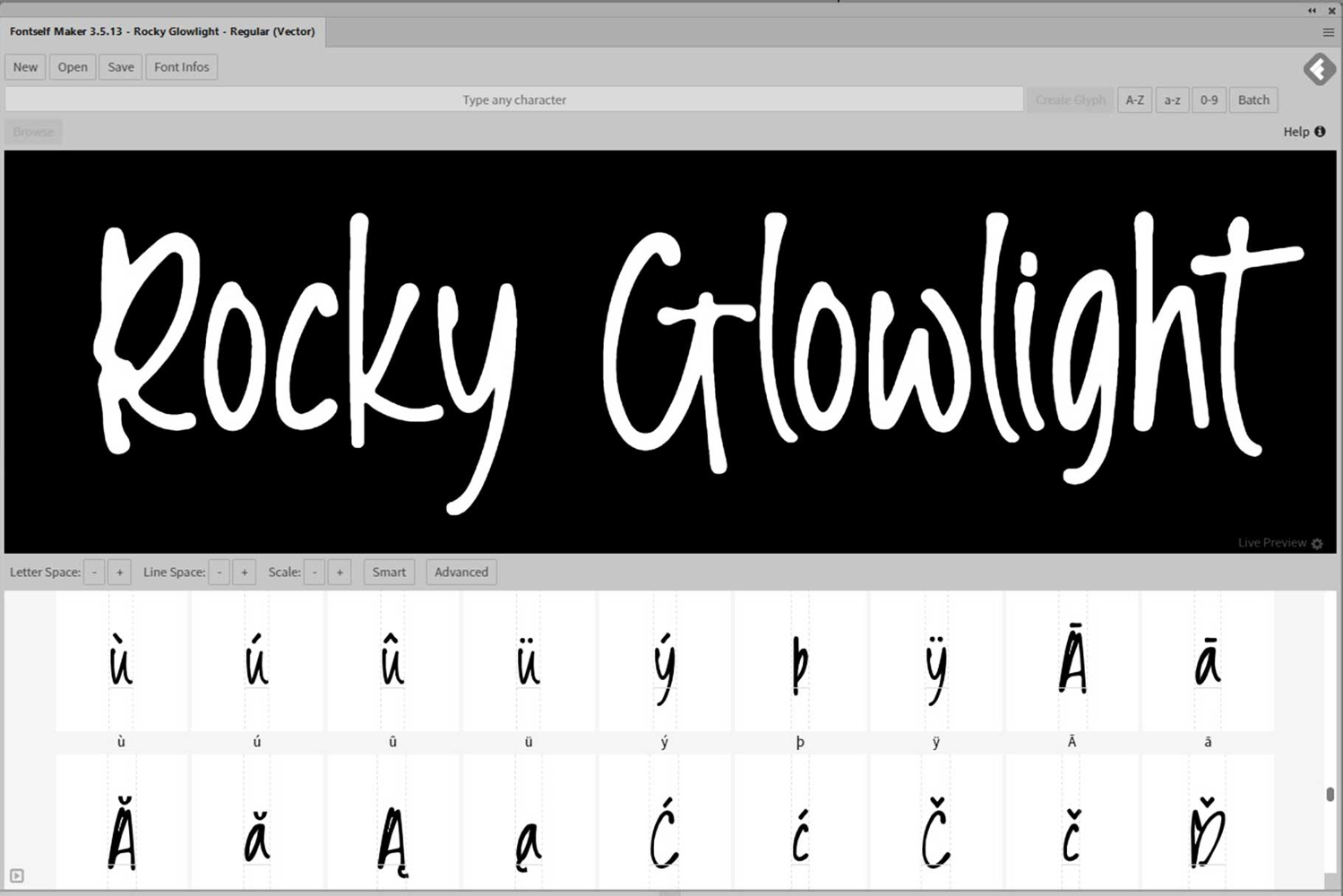
Rocky Glowlight
Rocky Glowlight is a font with a natural, handmade feel. Use this handwritten font to create stunning logos, beautiful stationary artwork, engaging social media posts, sweet greeting cards, and more for your design needs.